Anime Font Generator
"Anime font" doesn't point to one specific typeface the way "Times New Roman font" does — it's more a vibe: manga sound-effect lettering, katakana-inspired shapes, bold graphic-novel energy. So instead of a single style, this page groups together a handful of looks built around that vibe: Manga Style leans into blocky sound-effect lettering, while Kanji Mix and Katakana Style borrow the visual rhythm of Japanese character shapes.
None of these substitute real Japanese script — they're Unicode lookalike characters chosen for visual resemblance, meant for stylized English text, not for translation.
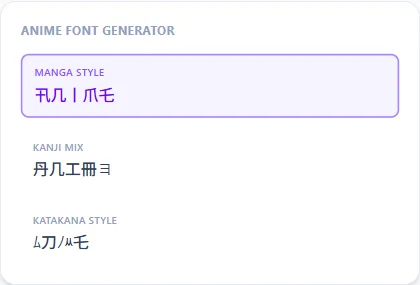
What "anime font" actually means as a search
Most people typing this aren't looking for one exact typeface — they're after a look that reads as anime or manga at a glance. This page treats it that way, listing a few visually distinct styles side by side rather than picking one and calling it definitive.
Manga Style, Kanji Mix, and Katakana Style compared
Manga Style uses blocky, angular lookalike characters closer to sound-effect lettering seen in manga panels. Kanji Mix and Katakana Style each borrow shapes from a different Japanese script for a different visual rhythm — neither is real Japanese text, both are English letters remapped to similar-looking Unicode characters.
Is this real Japanese text?
No — these styles remap English letters to Unicode characters that visually resemble Japanese script shapes. They aren't translations and don't carry any actual Japanese meaning.
Which style is best for a username or channel name?
Manga Style tends to stay the most legible at a small size; Kanji Mix and Katakana Style lean more decorative and work better for a short standalone word than a long username.
Can I use these for an anime fan account bio?
Yes, all three are plain Unicode text, so they paste into a bio, caption, or post the same way they display here.
Is there just one "anime font," or is this a mix of styles?
It's a mix — "anime font" doesn't refer to one specific typeface, so this page offers a small set of visually anime-adjacent styles rather than a single definitive one.